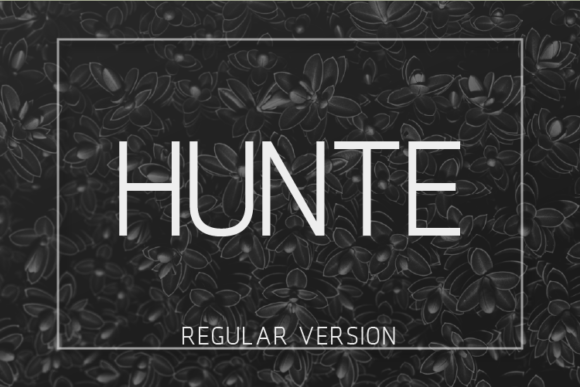
Hunte Font
Introducing HunteFont — A Sans Serif Masterpiece of Cleanliness and Versatility
Step into the world of typography with HunteFont — a remarkable sans serif font family that radiates clarity and adaptability like never before — all brought to you by the esteemed TypeBytype foundry.}
Unveiling its exceptional design aesthetics and wide versatility across media and industries.}
With its clean and measured appearance due to the lack of terminals (finishing strokes of letters), HunteFont seamlessly blends modern and classic elements.}
Witness the beauty of HunteFont across a broad spectrum of design applications from captivating publishing creations and eye pleasing UI designs to immersive web experiences and branding projects.}
With its versatility and clarity as your allies let HunteFont elevate your creative projects to new heights.}
From fashion catalogs to corporate presentations to captivating logos — let HunteFont be the font of choice.}
Experience the transformative power of HunteFont today and see the difference it brings to your creative endeavors.}
Let clarity and versatility be your guiding principles as you explore the limitless possibilities of design with HunteFont.}
Welcome to the world of HunteFont — where design excellence and innovation collide.}
Enhance your creative toolkit with this font gem and unlock new horizons of design possibilities.}